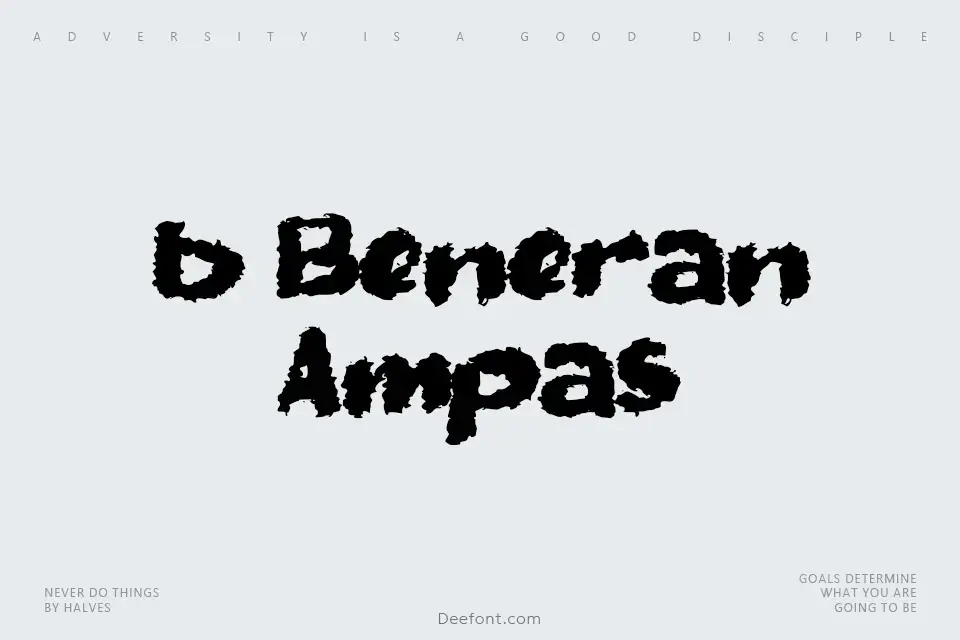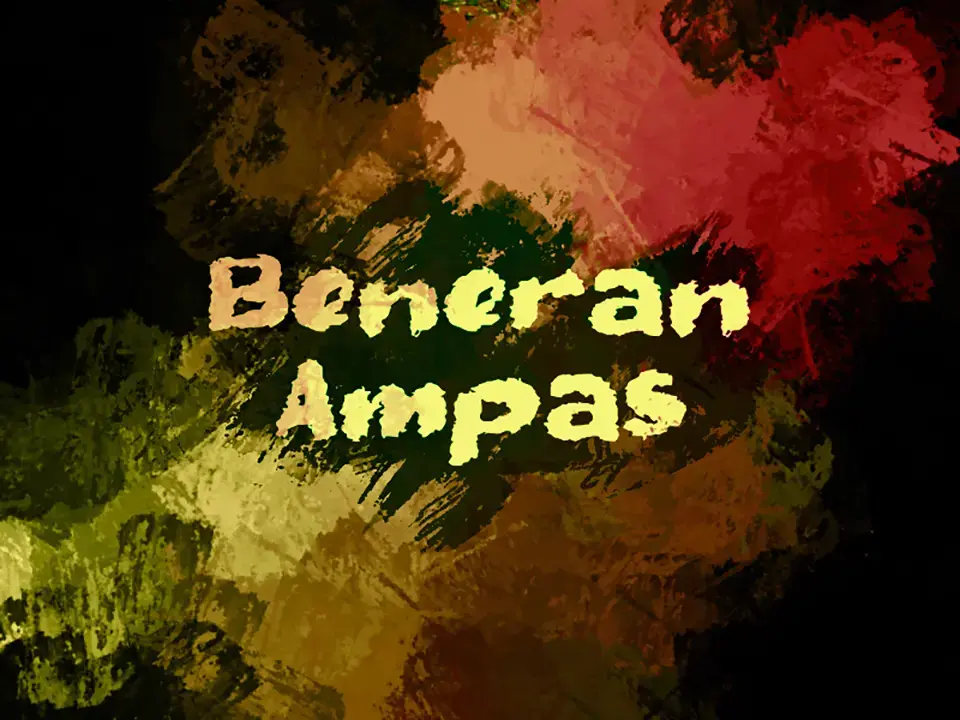
b Beneran Ampas Font
b Beneran Ampas is a distinctive grunge typeface featuring heavily distorted and fragmented letterforms that deliver raw visual impact. Designed with irregular strokes and chaotic character destruction, this display font excels in creating bold, edgy aesthetics for posters, flyers, merchandise designs, and alternative branding projects. The font’s radical departure from conventional letterforms makes it ideal for music album covers, horror movie titles, skateboard graphics, street art applications, and contemporary design work targeting youth-oriented audiences. With 95 glyphs and a Regular weight, b Beneran Ampas combines unconventional aesthetics with functional letterforms suitable for display purposes where artistic expression takes precedence over readability conventions.